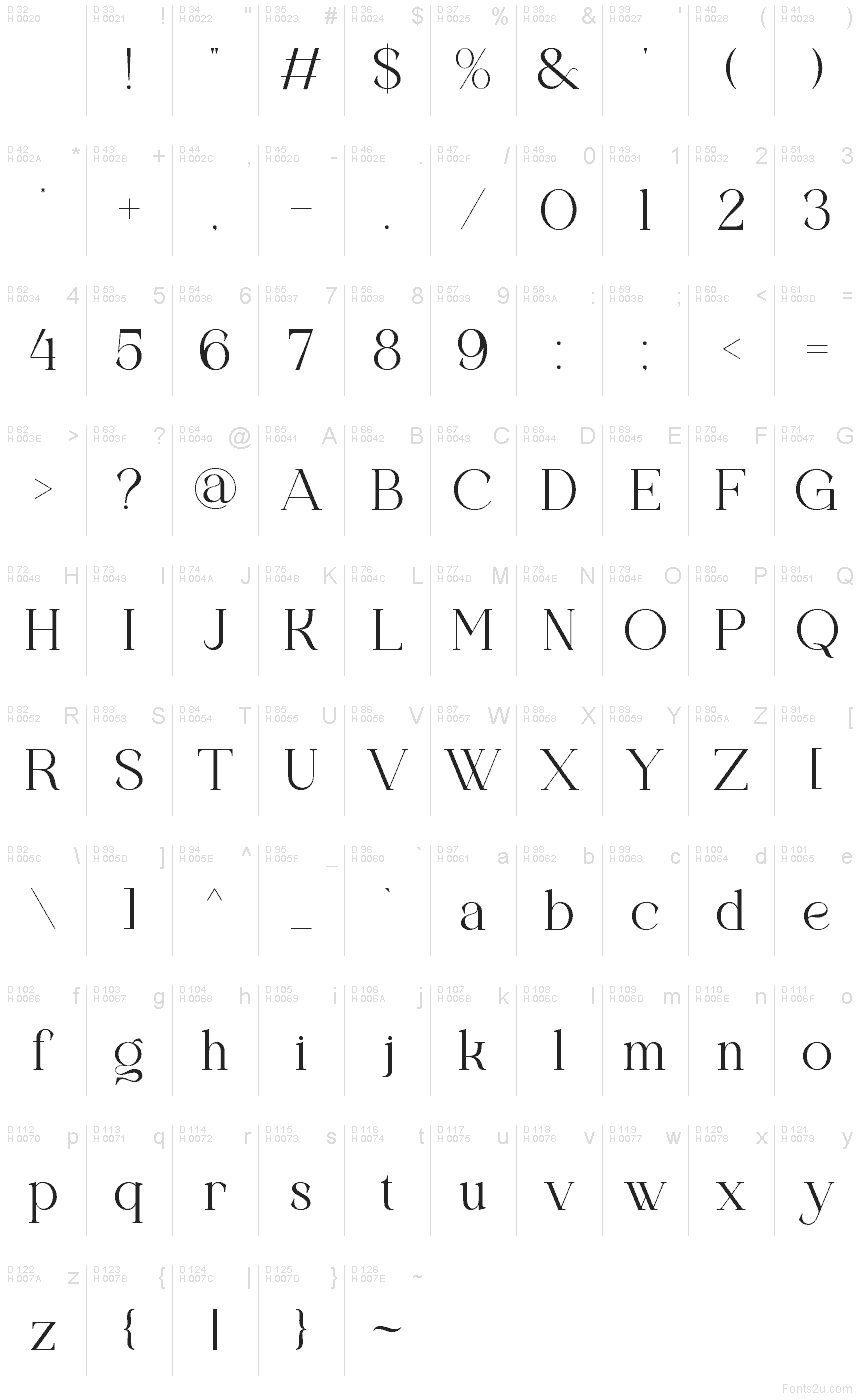
Sheina Regular
Sheina font by Ermedia Studio is a free serif display font. Built around voluptuous curves and knife-edge hairlines, it blends inky thick strokes with crisp, tapered serifs that catch the light like cut glass. The rhythm feels couture: tight joins, generous bowls, and elegant apertures that deliver drama without clutter.
Using Sheina, headlines lock in with poise and presence—great for fashion branding, editorial covers, beauty packaging, boutique logos, poster campaigns, and upscale invites. This free font shines at large sizes with a touch of tracking to let those razor-fine details breathe. Pair it with a clean, unobtrusive grotesk for body copy to keep the spotlight on Sheina’s sculpted contrast.